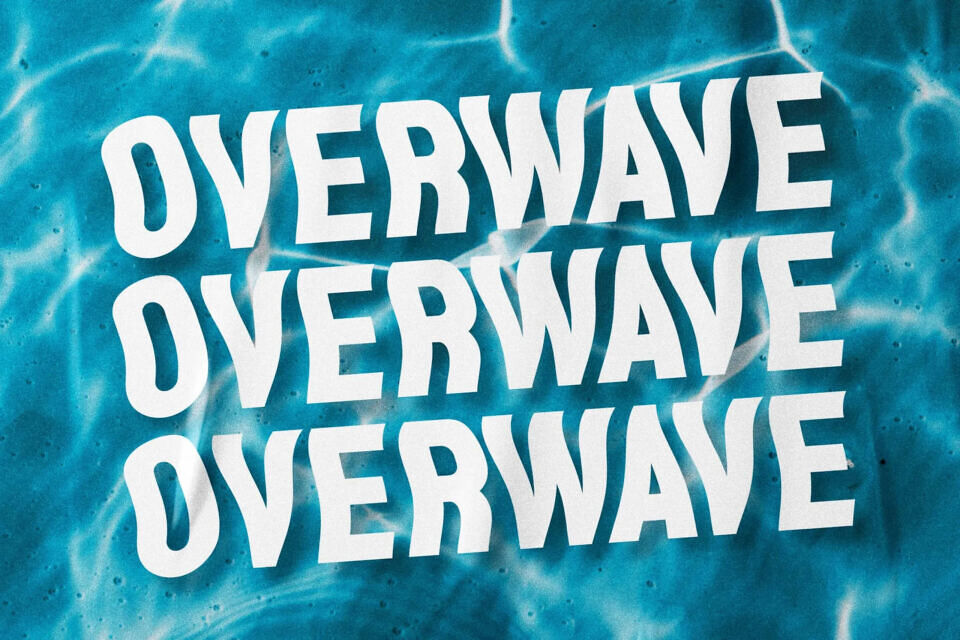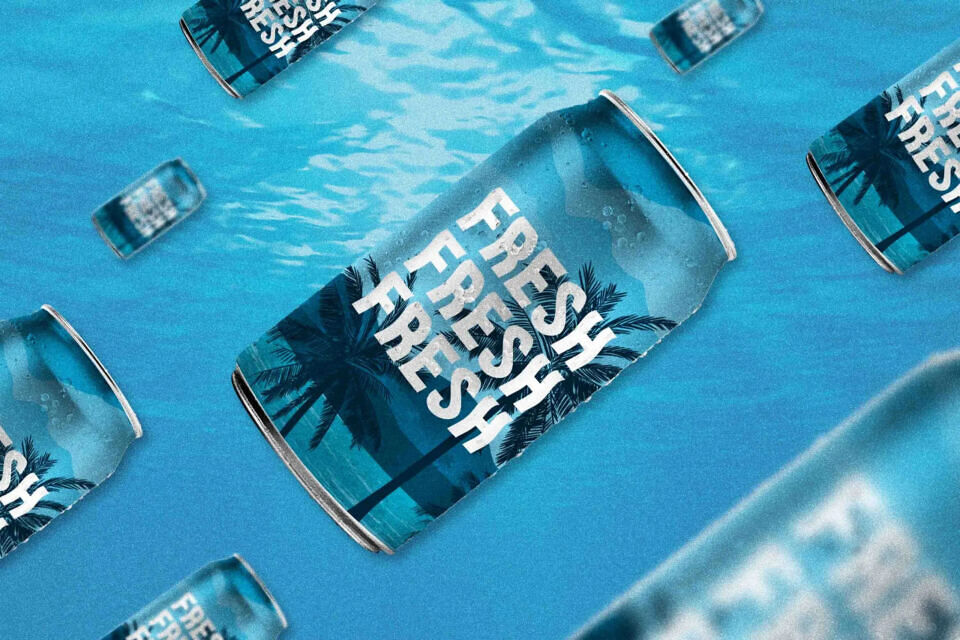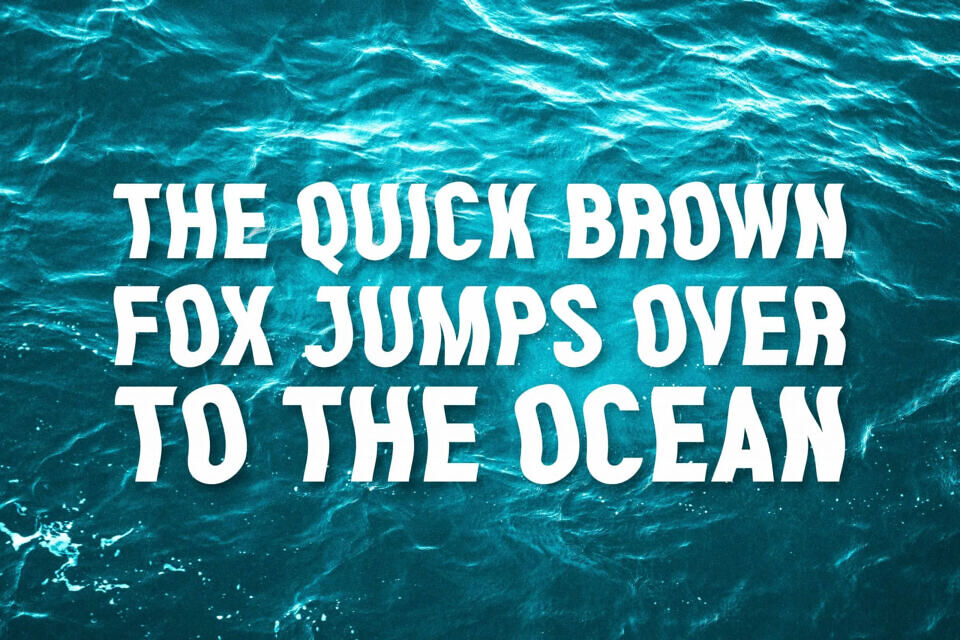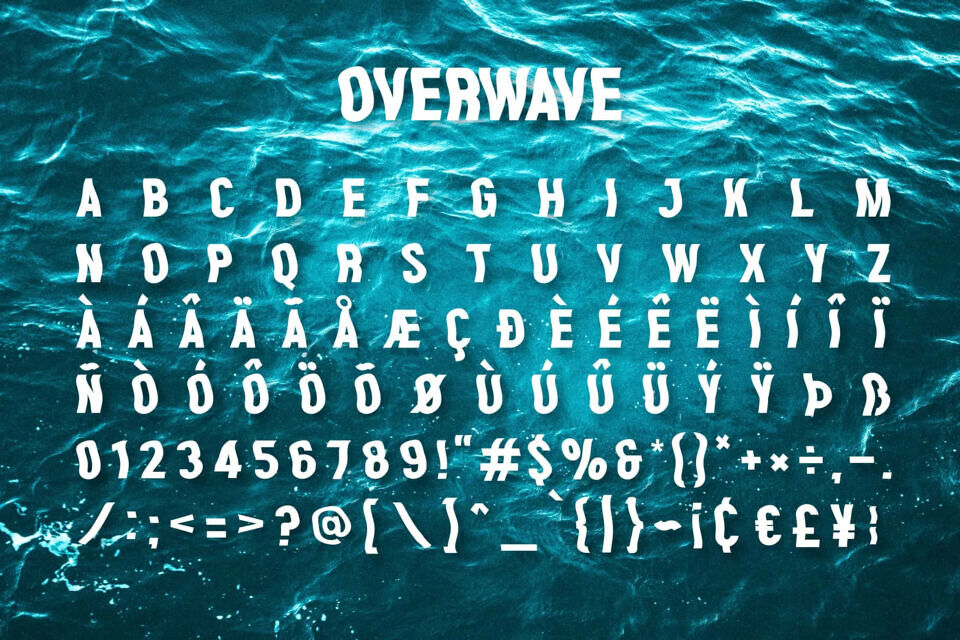
Meet Overwave, a modern display sans font featuring a distinctive wave-inspired design. Perfect for titles, logos, and typography, it adds a professional touch to various design projects, including clothing, magazines, brochures, packaging, and more.